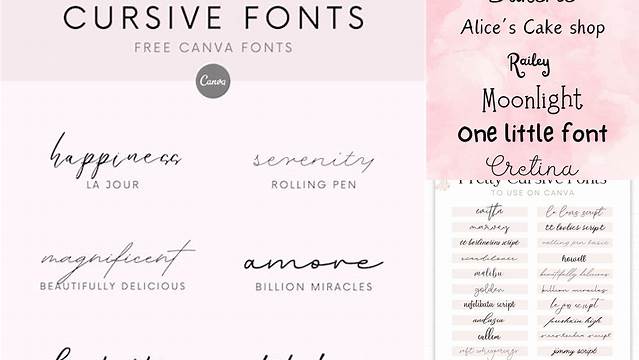
Cute Cursive Fonts On Canva
Hey guys! If you're anything like me, you're probably obsessed with making your designs look absolutely amazing. And one of the best ways to do that? Fonts, of course! Specifically, cute cursive fonts. They add a touch of elegance, personality, and that certain je ne sais quoi that can instantly elevate your projects. Canva is a goldmine for design, and thankfully, they have a fantastic selection of cursive fonts. So, let's dive in and explore some of the best cute cursive fonts on Canva that will make your designs pop. We'll cover everything from elegant scripts perfect for wedding invitations to playful, whimsical fonts that are ideal for children's projects. I'm going to give you a bunch of examples and ideas so you can see how versatile these fonts truly are. Get ready to unleash your inner designer and create some seriously cute stuff!
Why Use Cursive Fonts? The Magic of Handwritten Styles
Before we jump into the fonts themselves, let's talk about why cursive fonts are so darn awesome. First off, they bring a human touch to your designs. In a world dominated by digital everything, a cursive font can add warmth and personality that's hard to achieve with more generic typefaces. Think about it: a well-chosen cursive font feels like a personal note, a handwritten invitation, or a piece of art. It's inherently inviting and engaging. Cursive fonts are perfect for adding a touch of sophistication and charm. Whether you're designing a logo, a social media post, or a website header, a well-placed cursive font can instantly grab attention and make your design stand out. Plus, cursive fonts are incredibly versatile. They can be dressed up or down, depending on the project. A fancy script can be perfect for formal events, while a more playful font is ideal for something fun and casual. I would say they are the secret sauce to good design. When used correctly, a cursive font can create a sense of elegance, intimacy, and creativity that is hard to match. They are not just fonts; they are visual storytelling tools that set the mood, convey emotion, and connect with your audience on a deeper level. So, the next time you're feeling a bit stuck in your design, give a cursive font a try. You might be surprised by the magic it brings to your project.
Top Cute Cursive Fonts on Canva
Alright, let's get to the good stuff. Here are some of my go-to cute cursive fonts available on Canva, along with suggestions on how to use them. These are the fonts I always find myself coming back to! These are the absolute must-haves in your design arsenal. Keep in mind that while I have a few favorites, Canva's library is always growing, so keep an eye out for new gems.
1. Dancing Script
Dancing Script is a classic for a reason. It's a beautiful, flowing script that has a playful yet elegant vibe. It's incredibly readable, making it a great choice for headings, quotes, or short paragraphs. The font is great for a range of projects, from social media graphics to invitations and even branding materials. Dancing Script is super versatile, meaning you can make it work in tons of different projects. It strikes a balance between formal and fun, making it suitable for many occasions. It's not too over-the-top, so it's easy on the eyes and doesn't feel out of place in most designs. The font flows together beautifully and will give your designs a sense of movement and grace. Dancing Script feels both personable and professional. I use it all the time for anything that needs to feel friendly but also polished.
2. Playlist Script
If you are looking for something a bit more bold, then Playlist Script is the choice. It has a more pronounced, brush-stroke style with a modern twist. It's bolder and has a bit of a handcrafted feel, perfect for adding personality to your designs. Playlist Script is excellent for headings, logos, or accent text where you want to make a statement. It's got a cool, contemporary vibe that is perfect for social media graphics, posters, or any project that needs a touch of urban flair. If you want something that's trendy and eye-catching, look no further. This font is an absolute head-turner. It works especially well for quotes or short phrases, drawing the viewer's eye in immediately. It’s the font you want to use when you want to be noticed, especially if you are trying to attract a younger audience. Because of the handmade look, it feels authentic and real. It is really good to use it to create a strong visual impact. If you want something that is cool and has a bit of an edge, this font is the way to go.
3. Great Vibes
Great Vibes is another stellar option for elegant designs. It's a stylish, flowing script with a high-end look. Perfect for projects that need a touch of luxury, like wedding invitations, fashion-related content, or high-end branding. Great Vibes is known for its graceful curves and refined appearance, giving any design a touch of elegance. It looks amazing on invitations, adding a sophisticated feel, and on branding materials for products that need to project a sense of quality and beauty. It also can be used in logos and website headers to communicate sophistication and style. This one is my go-to when I am trying to create a sense of timelessness and luxury. It's absolutely stunning.
4. Allura
Allura is a slightly more casual script font. It's a very legible cursive font with a gentle, flowing design. Allura is great for almost any kind of design that needs a friendly, warm look. Think children’s books, greeting cards, and relaxed branding projects. Allura is incredibly versatile. It works well for long blocks of text, as it is very readable. It works great for adding a friendly, personable feel to any of your designs. I use Allura a lot when I'm designing something that needs to feel welcoming and approachable. If you’re going for a casual look, this is your font.
5. Caveat
Caveat is a friendly handwritten font that is slightly more casual than the other cursive fonts mentioned. It has a very legible design with a slightly irregular shape. This gives it a natural and personal touch. The font is excellent for adding a handmade feel to your designs. It is perfect for quotes, short passages, or any design that needs a touch of warmth. Caveat works great for greeting cards, blog graphics, or any design needing an authentic, handcrafted aesthetic. I love to use this for a lot of projects. It's super charming and inviting, perfect for projects where you want to connect with your audience on a personal level.
Tips for Using Cursive Fonts Effectively
Knowing the best cute cursive fonts on Canva is just the start, guys! You've also got to know how to use them well. Here are a few tips to keep in mind:
1. Pair with Complementary Fonts
Cursive fonts often work best when paired with a simpler font. Consider using a sans-serif or a clean serif font for body text to create a visual balance. Mixing the two types of fonts creates a design that is not too overwhelming and has a beautiful appearance. This contrast ensures readability while maintaining the elegance of the cursive font. This helps to balance the design and make it easier to read.
2. Consider Readability
While cursive fonts are beautiful, they're not always the easiest to read, especially in large blocks of text. Use them sparingly for headings, quotes, or short phrases. If you need to use a lot of text, make sure your font is super legible or consider a different font for longer passages. Always consider the readability first before anything.
Final Thoughts: Unleash Your Creativity!
Well, there you have it! A rundown of some of the best cute cursive fonts on Canva and how to make the most of them. Whether you're a seasoned designer or just starting out, I hope this guide has given you some ideas and inspiration for your next project. Don’t be afraid to experiment and have fun! The best designs come from testing and finding what works best for you. Remember, the key is to be creative and have fun with it! Go forth and create some seriously cute designs! Happy designing, friends!